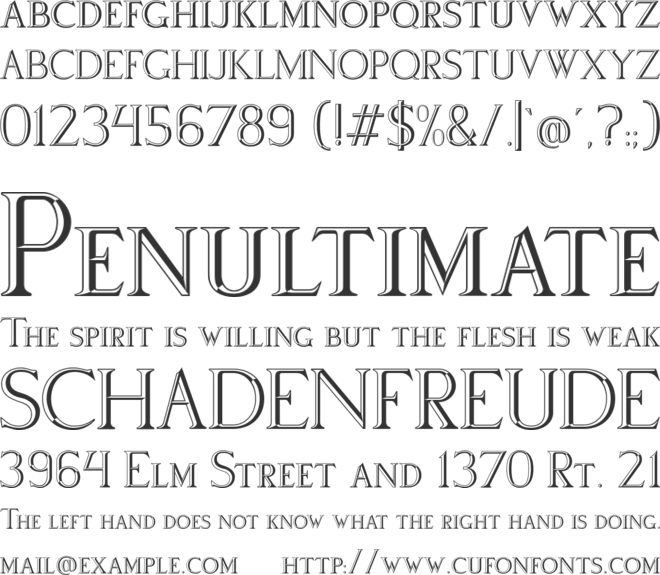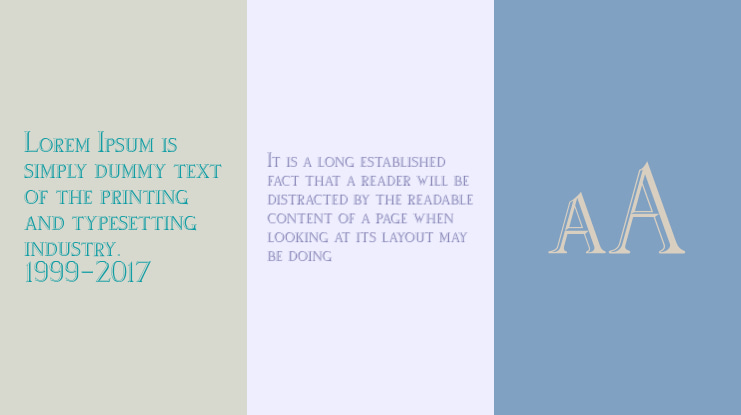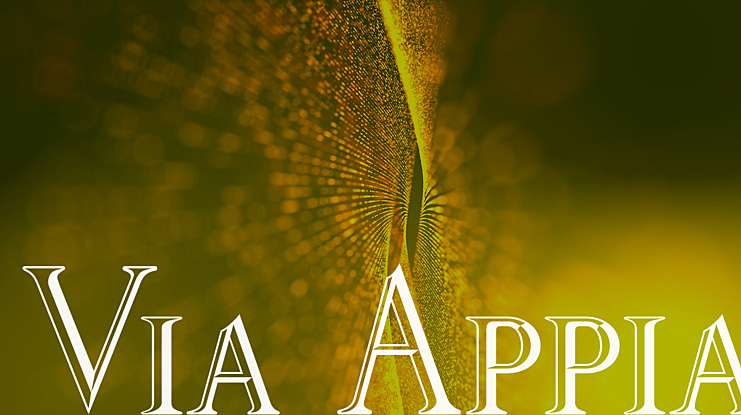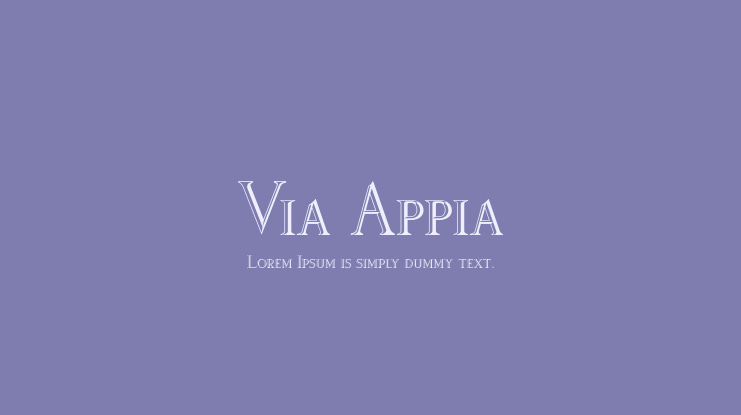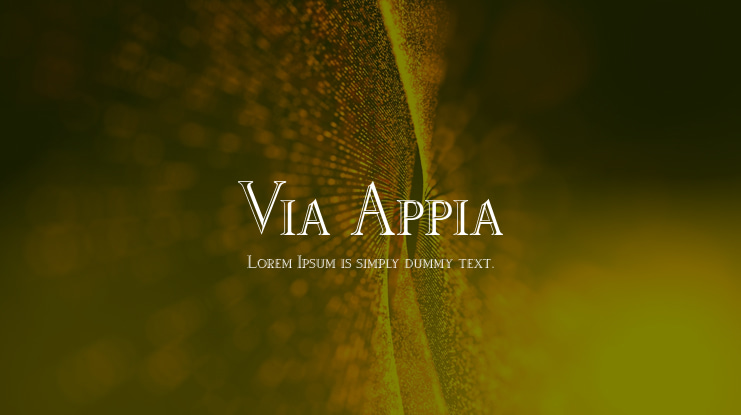
Via Appia Font
Yves Michel
Version 2:Added: Stylistic sets 1 and 2 to convert arabic numerals from 1 to 9999 to roman numerals. Added diacritics for most of the European languages